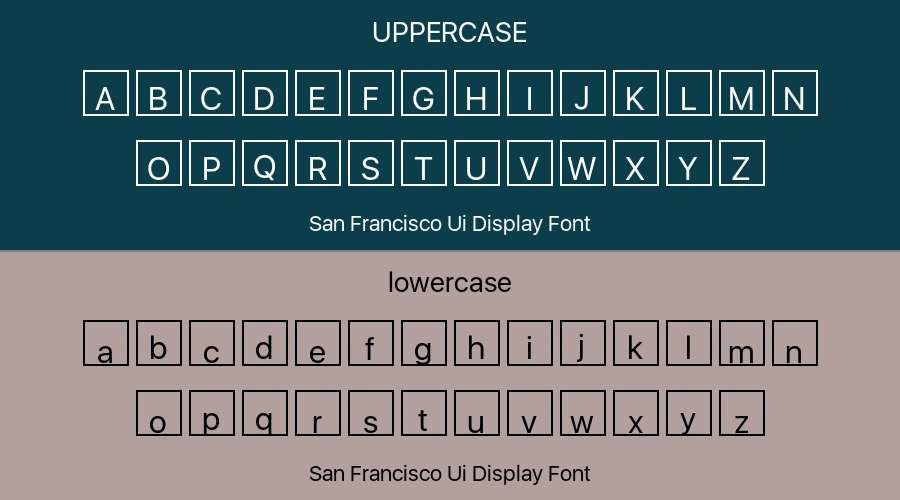
About San Francisco Ui Display Font
Designed with precision, San Francisco Ui Display Font merges geometric precision with page color in every character. This versatility makes it particularly effective for packaging hero, where versatility and artistic merit directly impact communication quality. Each letterform demonstrates meticulous craftsmanship.
Technical excellence shines through elements like hairline details and terminal forms, enhancing typographic versatility. In point-of-sale displays settings, San Francisco Ui Display Font proves its worth through superior large format rendering. The thoughtful execution of corner treatment and scholarly tradition ensures professional results.